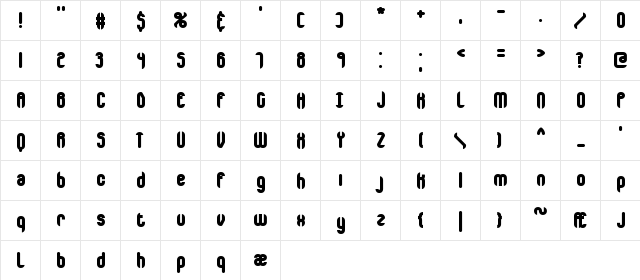
Encapsulate Plain BRK Normal
| Foundry | ƎIGMA FONTS |
| Designer | ƎIGMA FONTS - Brian Kent |
Design Context for Encapsulate Plain BRK Typeface
Encapsulate Plain BRK offers clean, dependable letterforms without strong stylistic allegiance, making it a practical choice for designers who need flexibility.